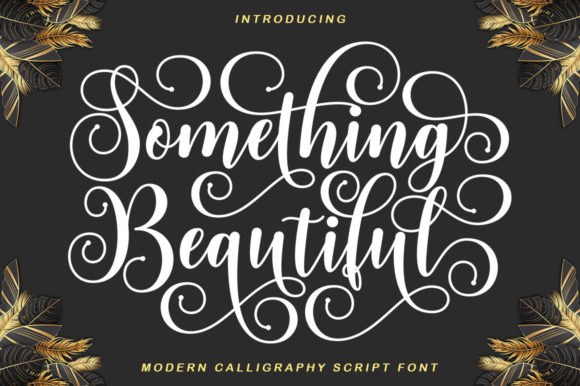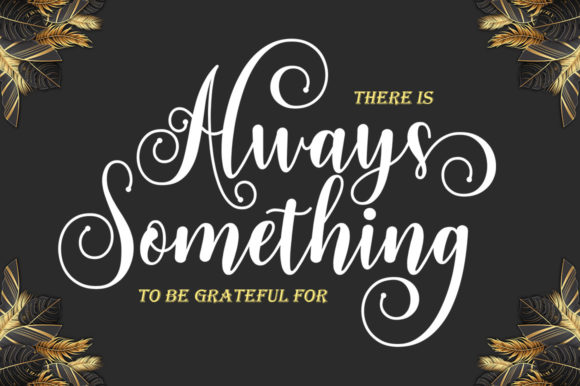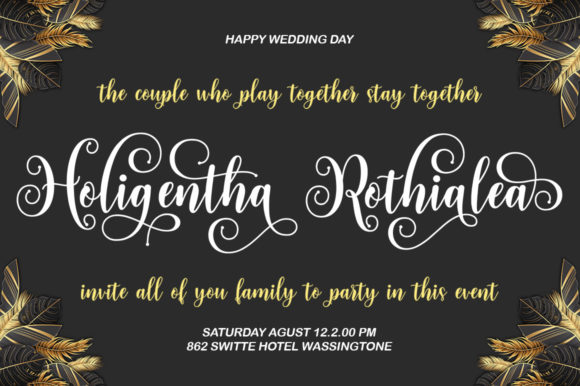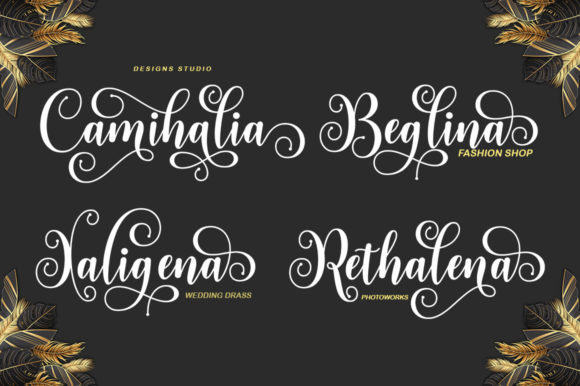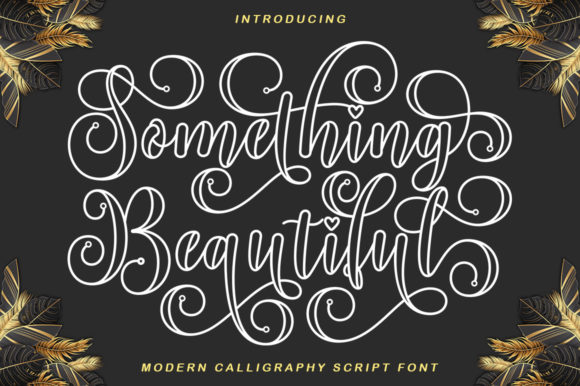
Something Beautiful Font
About Something Beautiful Font
Something Beautiful is a dazzling script font. This font is neatly crafted and highly detailed. Whatever the topic, this font will be a wonderful asset to your font library, as it has the potential to enhance any creation.
Something Beautiful is PUA encoded which means you can access all glyphs and swashes with ease!